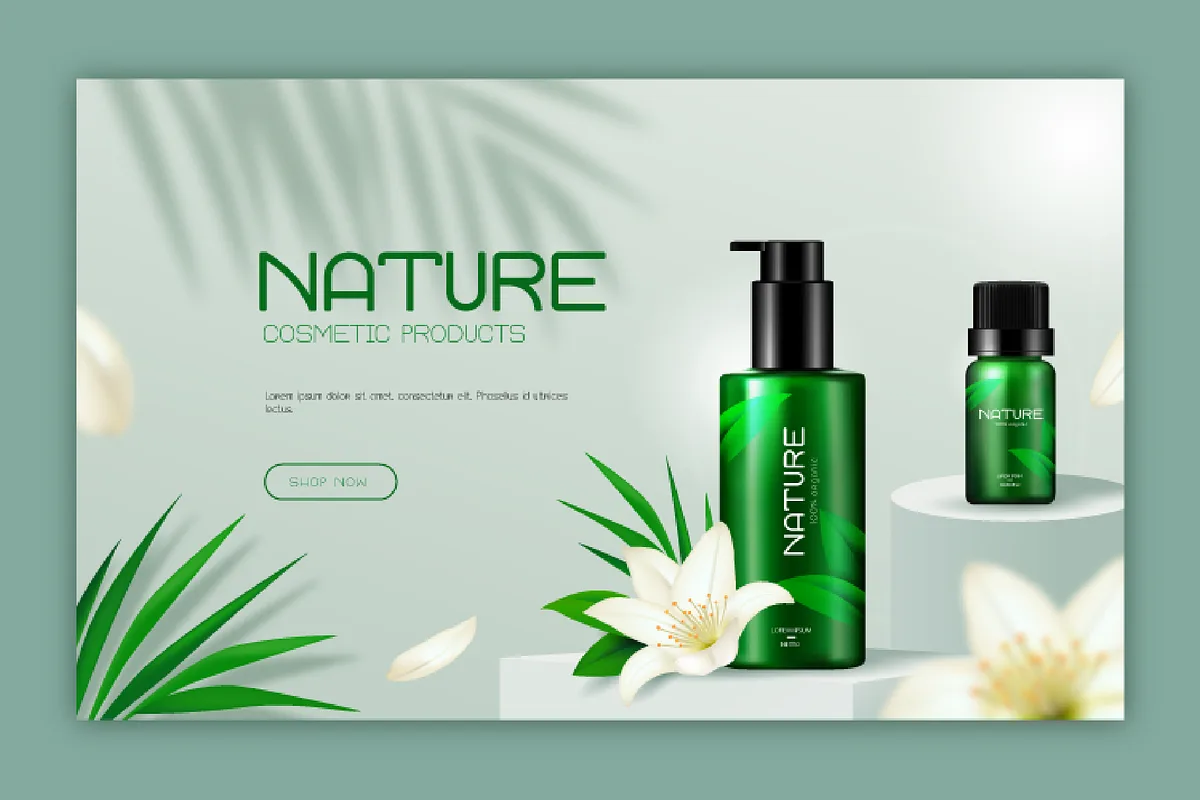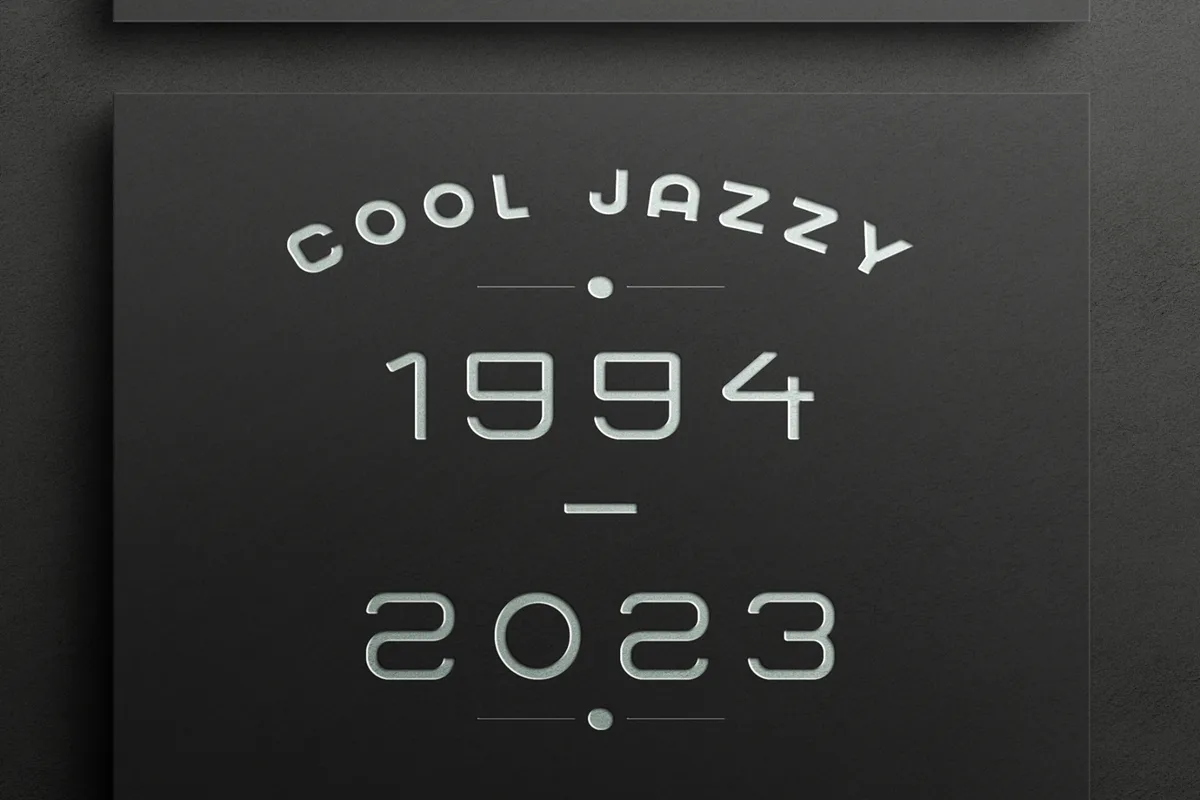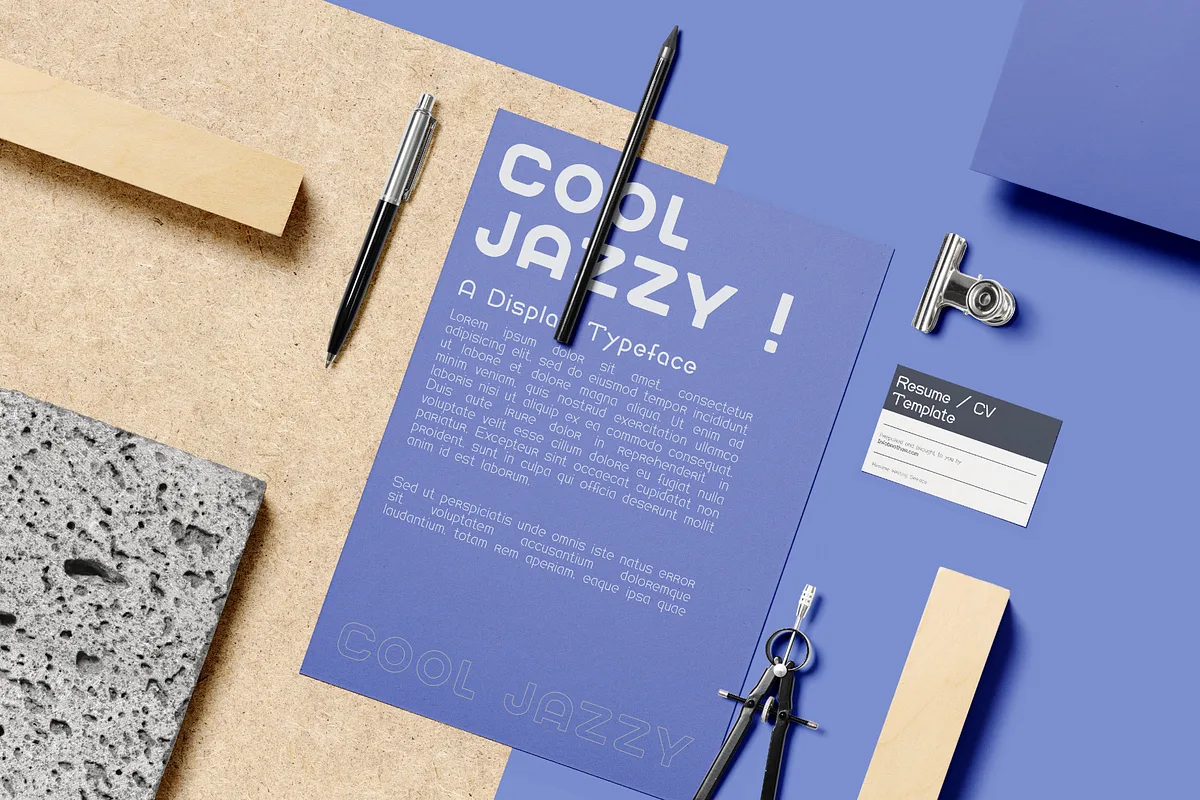
Introducing The Brand New “COOL JAZZY” The Geometric Sans-Serif Typeface. A modern sans-serif font family that is crisp and beautiful, Cool Jazzy is known for its exceptional readability. The advanced typographical assistance it offers includes, among other things, case-sensitive forms, tiny capitals, ligatures, alternative characters, fractions, professional kerning’s, and spacing, among other things.
The Cool Jazzy has a strong and light font weight, softened edges, and occasional slops for dynamic effects. Thanks to its distinctive charm and simple visual readability, this font is ideal for headlines and paragraph text, as well as logo and monogram designs.
- Exceptional Readability
- The Advanced Typographical Assistance
- Light and Bold Font Weights
- Ideal for Headlines and Paragraph Text
- 04 Different Styles – Regular, Bold, Black, Black outline
Cool Jazzy Font – Elegant Typeface